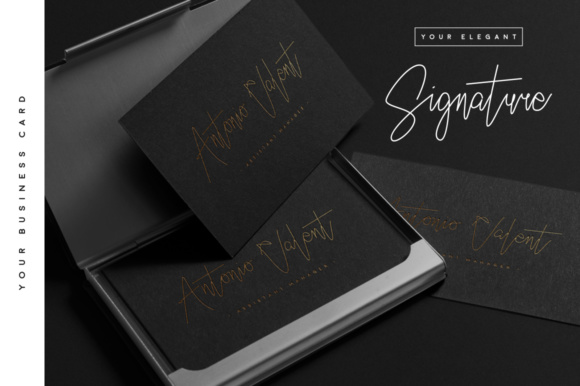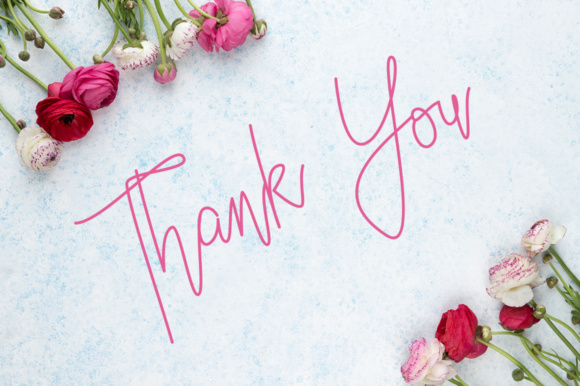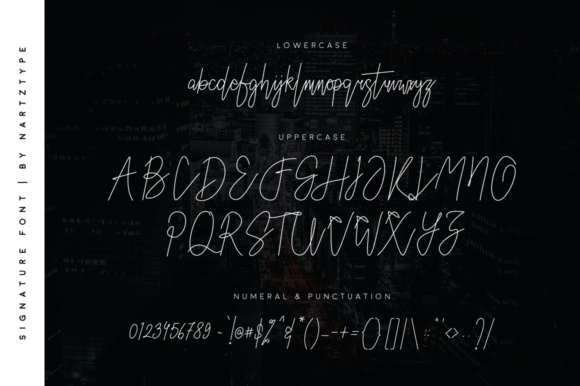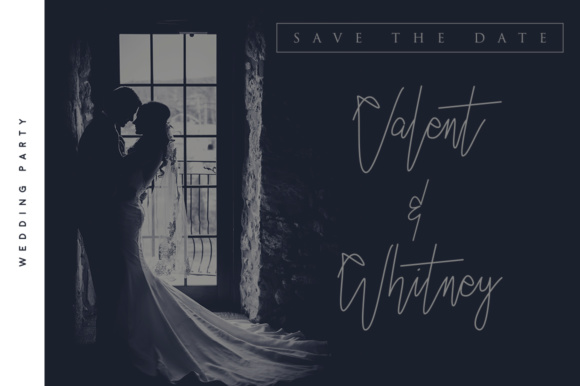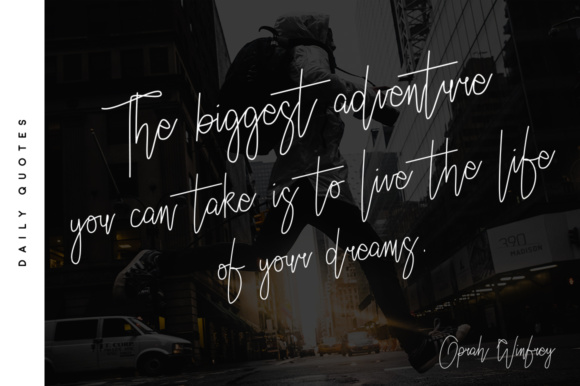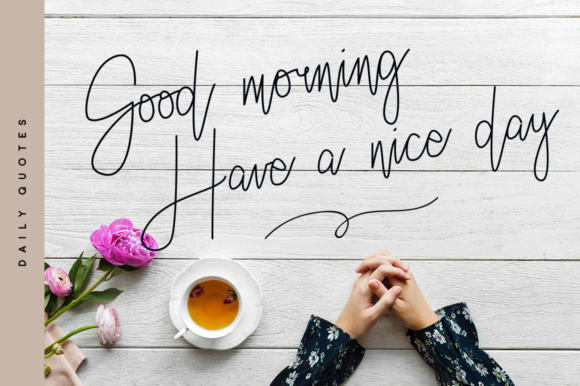
Austin Worth Font: Elevate Your Designs with Elegance and Charm
In the world of typography, fonts play a crucial role in conveying the tone and personality of a design. For designers and crafters looking to add a touch of sophistication and elegance to their projects, the Austin Worth Font is an excellent choice. This handwritten signature typeface is designed to bring a beautiful charm to your designs, making it perfect for a wide range of applications.
What is Austin Worth Font?
The Austin Worth Font is a carefully crafted handwritten signature typeface that exudes elegance and refinement. Its unique, flowing script is perfect for adding a personal touch to your designs, setting them apart from the ordinary. Whether you’re working on branding projects, home appliances designs, product packaging, book covers, magazines, or any other creative endeavor, this font is sure to make a lasting impression.
Key Features of Austin Worth Font
- Handwritten Signature Style: The Austin Worth Font boasts a beautiful, handwritten signature style that adds a touch of warmth and personality to your designs.
- Elegant and Refined: Its elegant and refined appearance makes it perfect for high-end branding, luxury product packaging, and sophisticated editorial designs.
- Versatile: This font is incredibly versatile, suitable for a wide range of design projects, from digital applications to print materials.
- Easy to Read: Despite its elegant nature, the Austin Worth Font remains highly legible, ensuring your message is communicated clearly and effectively.
Use Cases for Austin Worth Font
The versatility of the Austin Worth Font makes it suitable for various design projects. Here are some of the top use cases:
- Branding Projects: Establish your brand’s identity with a unique and memorable signature font that sets you apart from competitors.
- Product Packaging: Add a touch of luxury and sophistication to your product packaging, making your products stand out on store shelves.
- Book Covers and Magazines: Create eye-catching book covers and magazine layouts that convey elegance and refinement.
- Home Appliances Designs: Even home appliances can get a stylish makeover with this font, adding a personal touch to kitchen and home decor.
- Digital Designs: Use the Austin Worth Font in digital designs, such as website headers, social media graphics, and email newsletters, to add a personal and elegant touch.
Why Choose Austin Worth Font?
With so many fonts available, why choose the Austin Worth Font for your designs? Here are a few compelling reasons:
- Unique Style: The Austin Worth Font offers a unique style that can help your designs stand out in a crowded market.
- High-Quality: As a high-quality typeface, the Austin Worth Font ensures your designs look professional and polished.
The Austin Worth Font is a beautiful handwritten signature typeface that can elevate your designs with its elegance and charm. Whether you’re a designer, crafter, or DIY enthusiast, this versatile font is sure to become a valuable addition to your toolkit. With its wide range of applications, from branding and packaging to editorial and digital designs, the Austin Worth Font is an excellent choice for anyone looking to add a touch of sophistication to their projects.